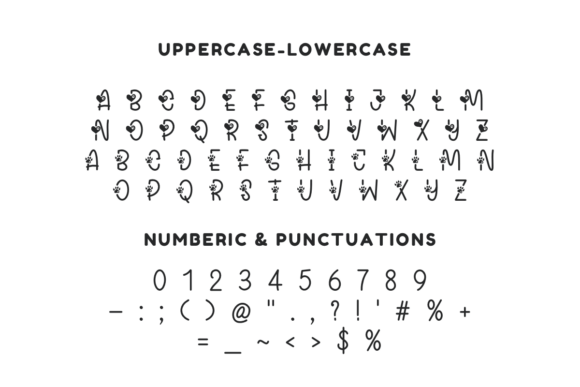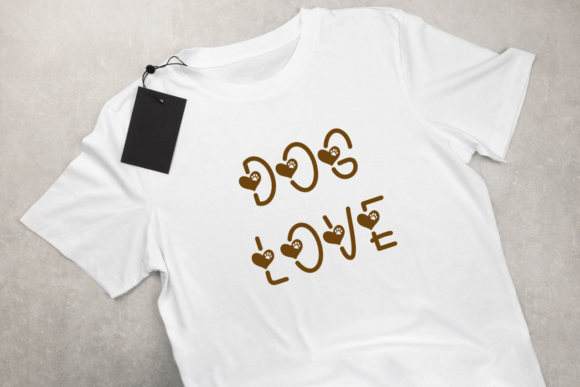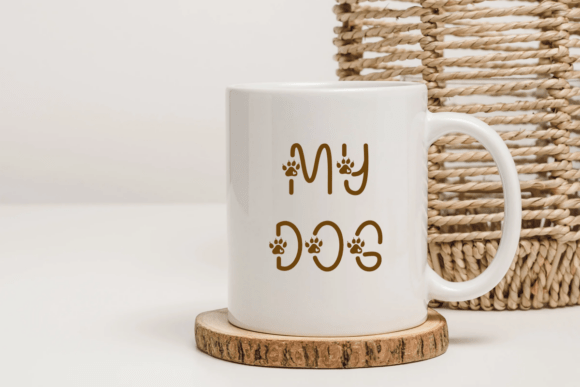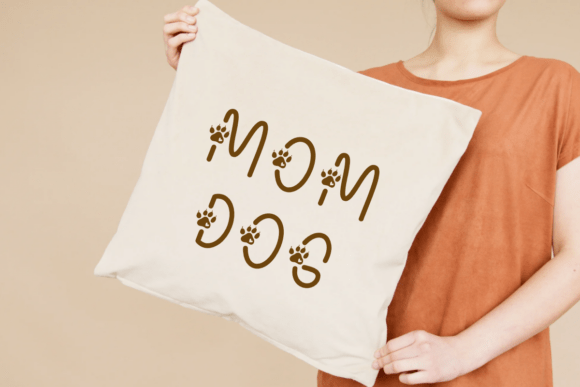
Introduction to Dog Paw Font
Do you ever get that feeling when you’re browsing through design resources, and you stumble upon something that just makes your heart skip a beat? For designers like you and me, it’s always exciting to discover a new font that can add that extra special something to our creative projects. And today, I’m thrilled to share with you one such amazing find – the Dog Paw Font.
This adorable font is perfect for adding a playful touch to your designs. Whether you’re taking notes, writing a diary, or making greeting cards, Dog Paw Font is a great choice. Its high-quality design and transparent background make it a valuable resource for designers looking to create unique and eye-catching content. And the best part? You can download it for free, making it an ideal addition to any creative project.
Key Features of Dog Paw Font
- Unique, hand-drawn design featuring a cute dog paw, ideal for pet-related themes and branding
- Perfect for designers, artists, and small business owners looking for a fun and creative design element
Honest Review: Dog Paw Font
I recently had the chance to experiment with the Dog Paw Font, a free download that caught my eye. As a designer, I was excited to see how it would fit into my creative project.
What works well is the high quality design of the font, which has a fun and playful feel to it. The transparent background is a nice touch, allowing for easy integration into various design contexts.
- Fun and playful design
- High quality
As for limitations, I found that the font may not be suitable for formal or professional projects. The whimsical design may come across as unprofessional in certain contexts.
- Not suitable for formal or professional projects
Overall, I think the Dog Paw Font is a great design resource for creative projects, especially those that require a lighthearted or humorous tone. Just be mindful of the potential limitations, and you’ll be all set for a fun and engaging design.
To get the most out of Dog Paw Font, use it with a transparent background for a clean and minimalist look. Experiment with different font sizes and styles to create visually appealing designs.
Dog Paw Font is perfect for:
- Designing pet-themed merchandise
- Creating social media graphics
- Developing branding materials for pet-related businesses